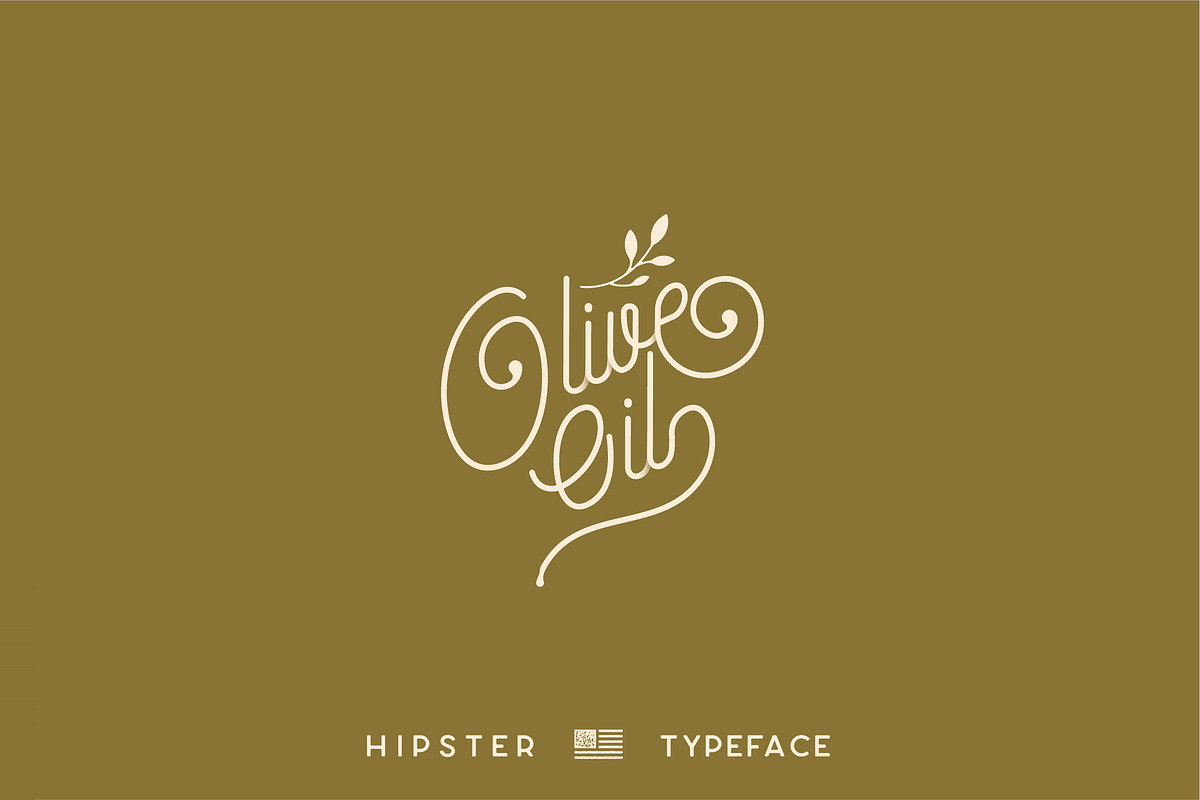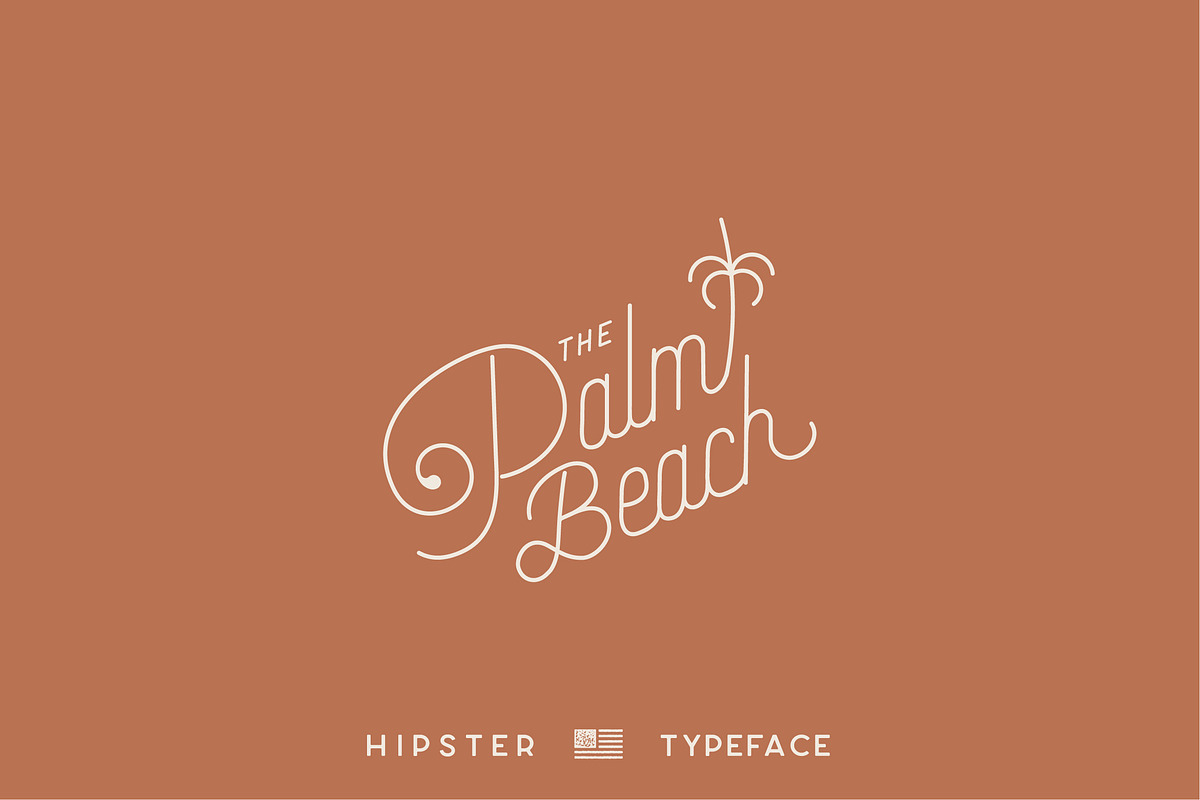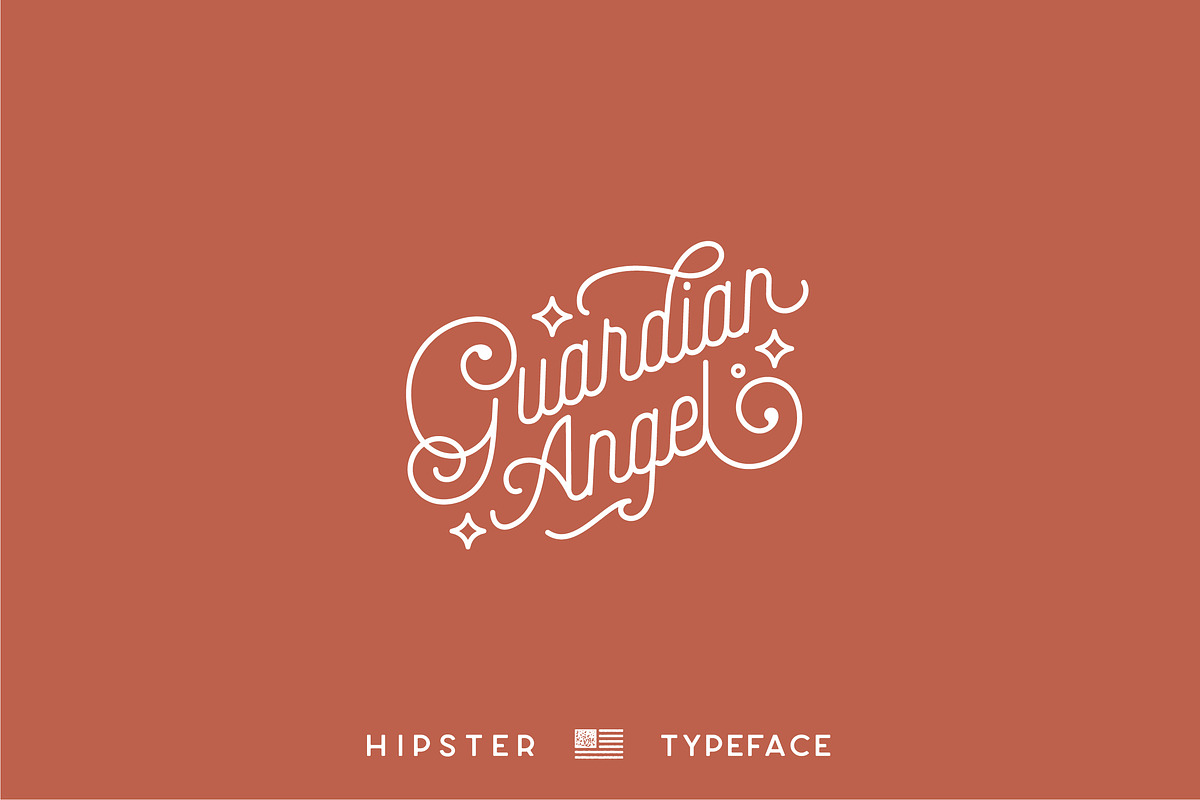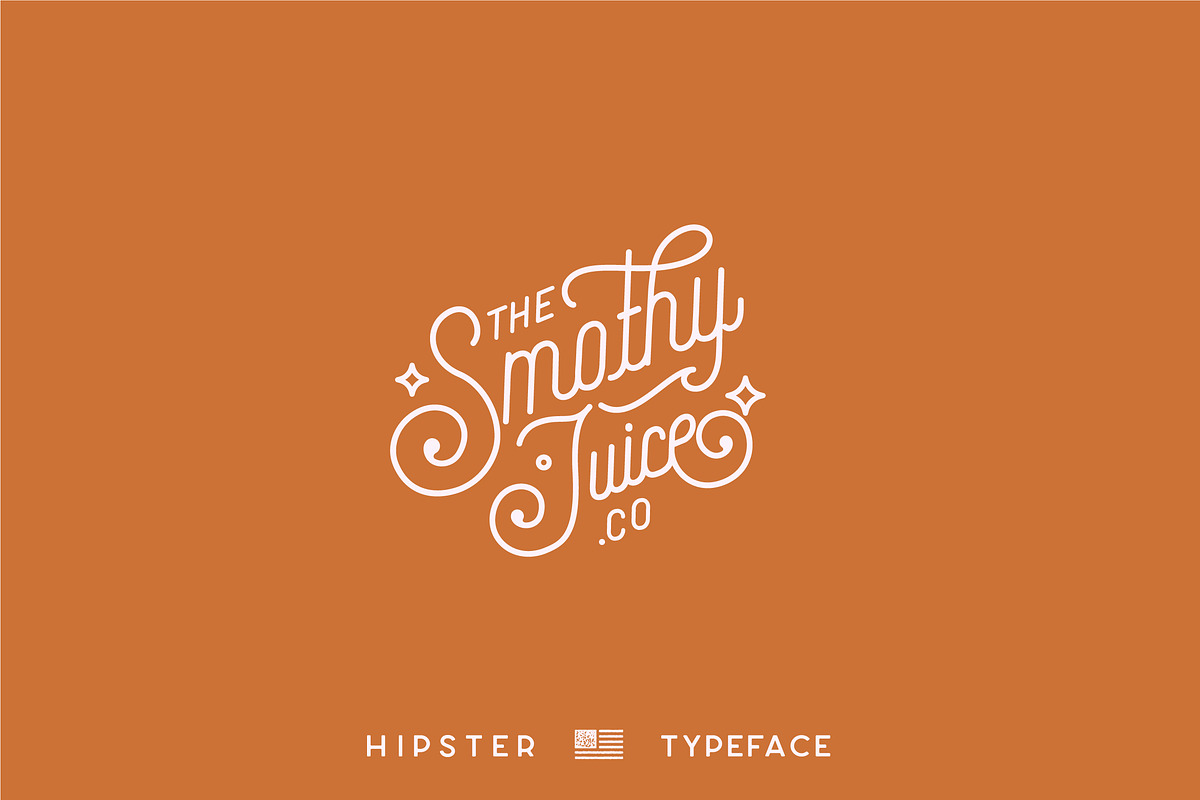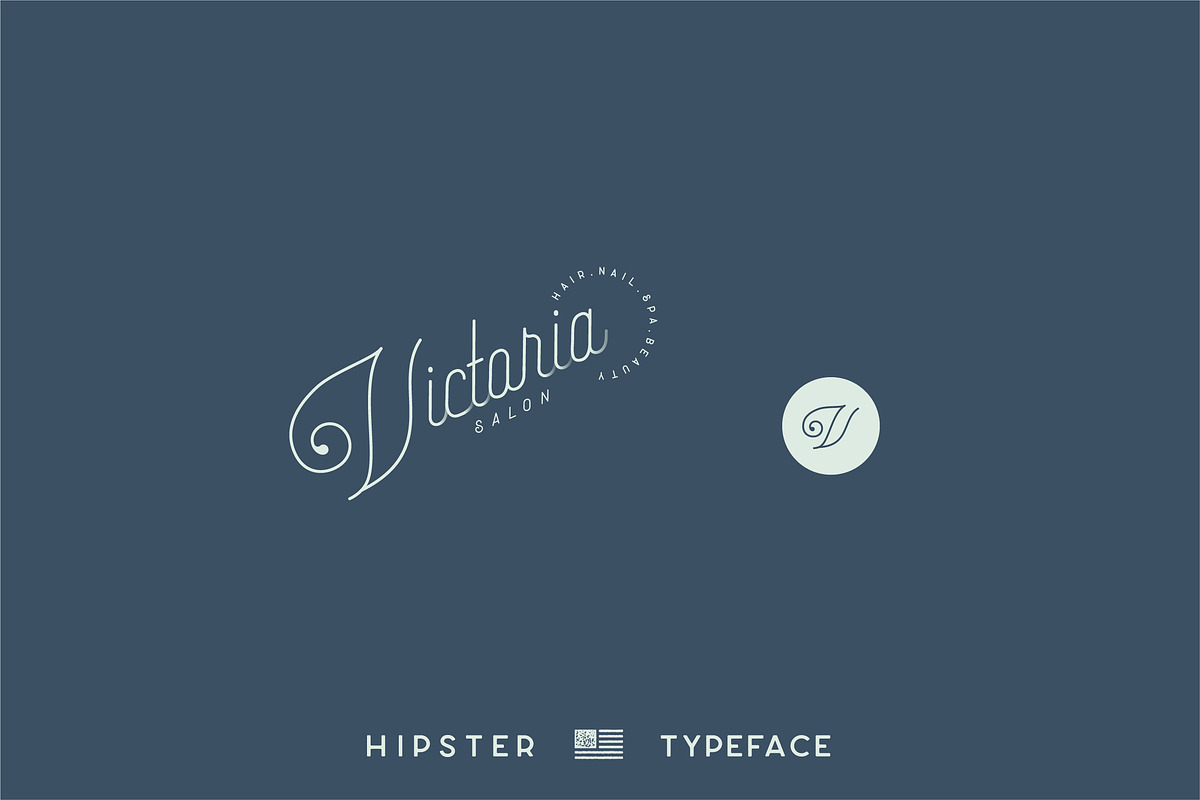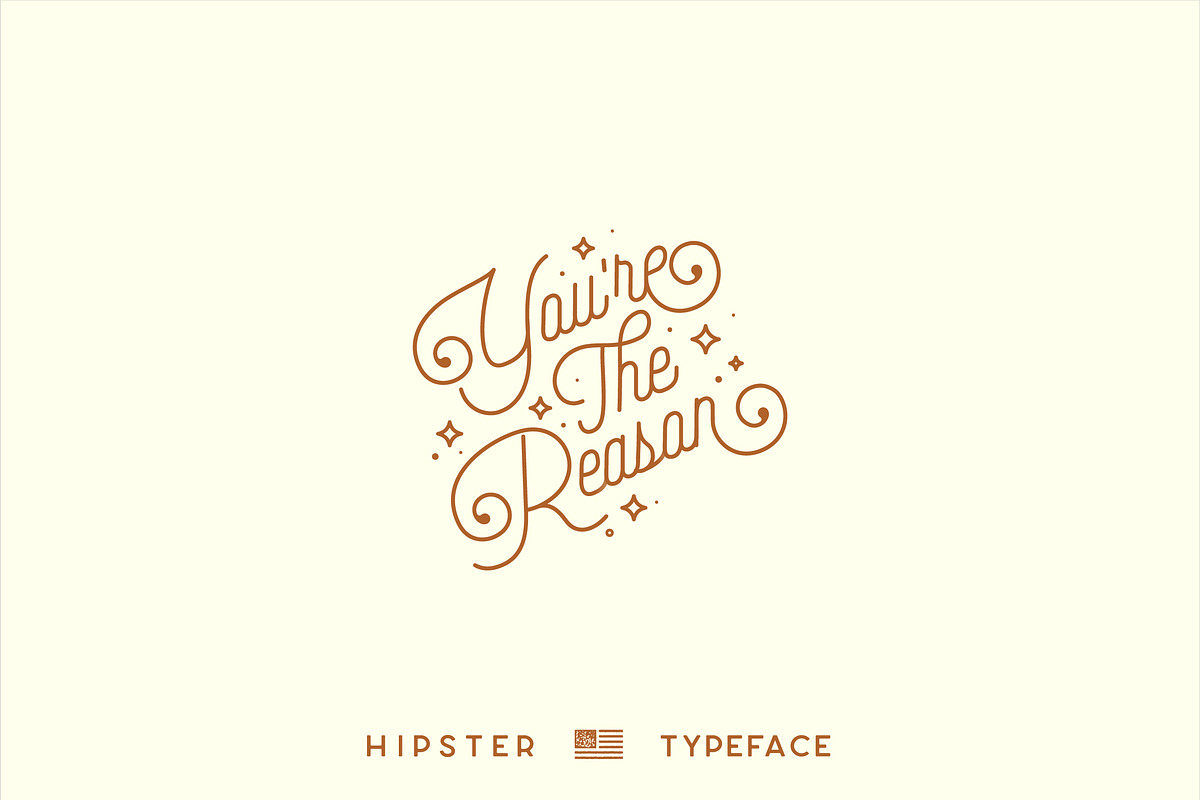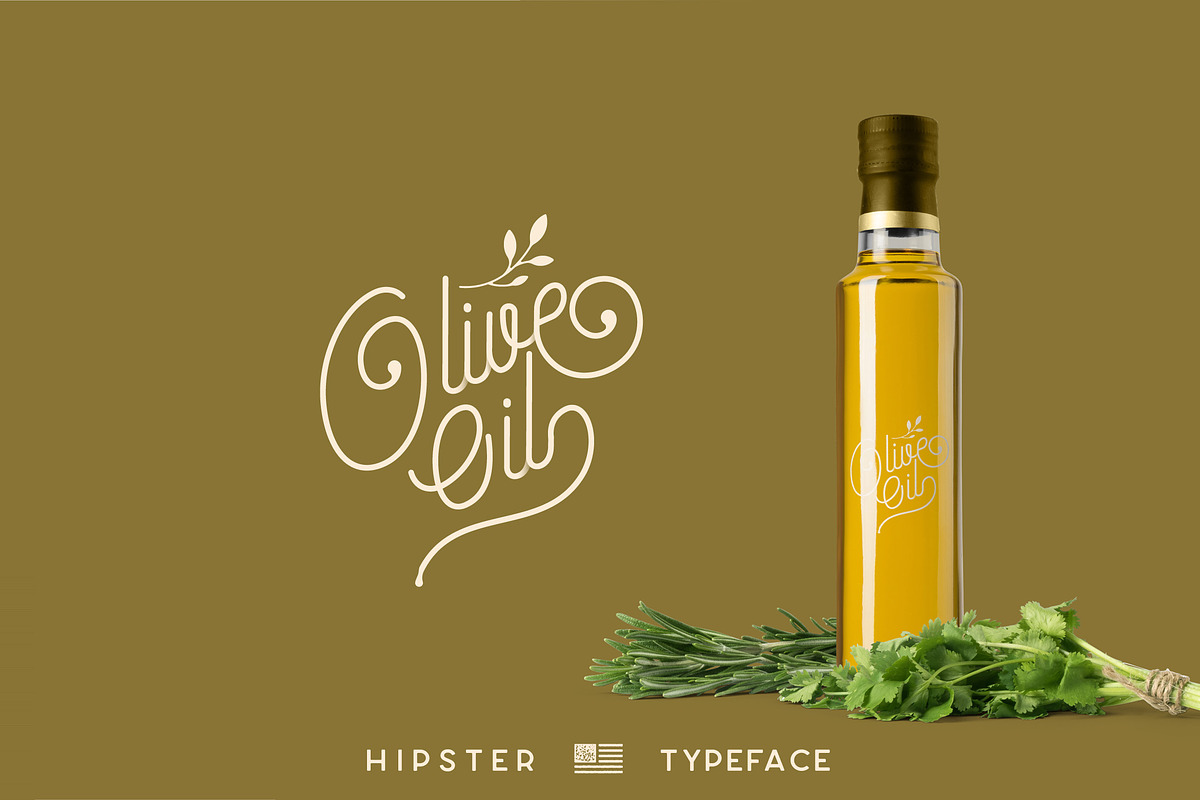
Hipster Style - Stylish Font Duo
Hipster Script and Sans is an elegant vintage handcrafted font duo with a ton of beautiful alternates. Its a hand-made monoline script and pair sans serif, inspired from vintage and retro culture with modern touch. Perfect for branding projects, Logo design, Clothing Branding, product packaging, magazine headers, or simply as a stylish text overlay to any background image.
Get 5 Hipster Script Styles + 7 Simple Sans serif A perfect typeface pair with for you to try.
Font Duo, Hipster Script and Sans Serif
Stylistic Alternates, Ligatures && swashes
- Font Duo, Hipster Script and Sans Serif
- Stylistic Alternates, Ligatures && swashes
- Numerals & Punctuation